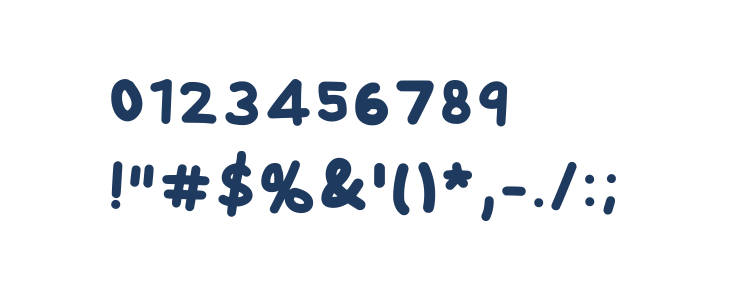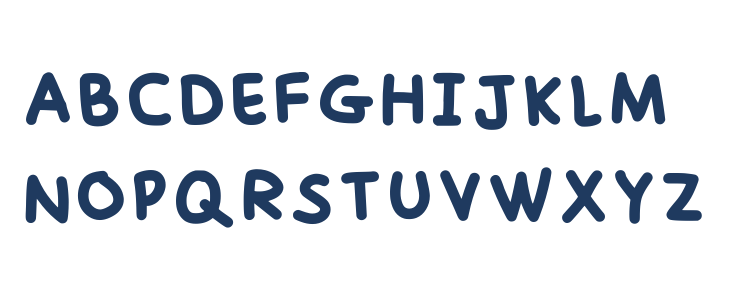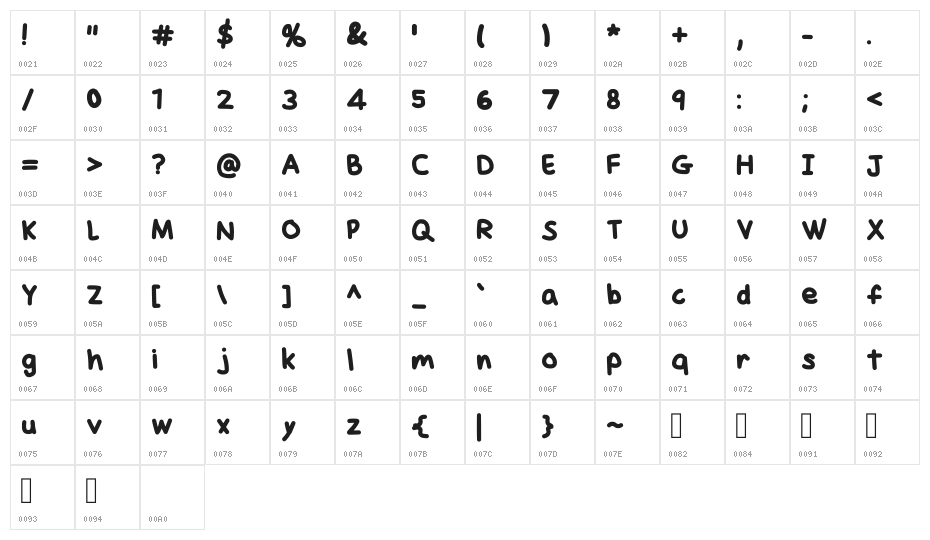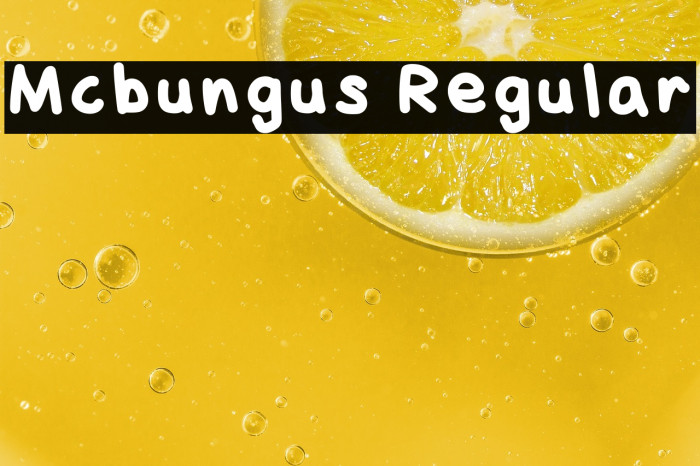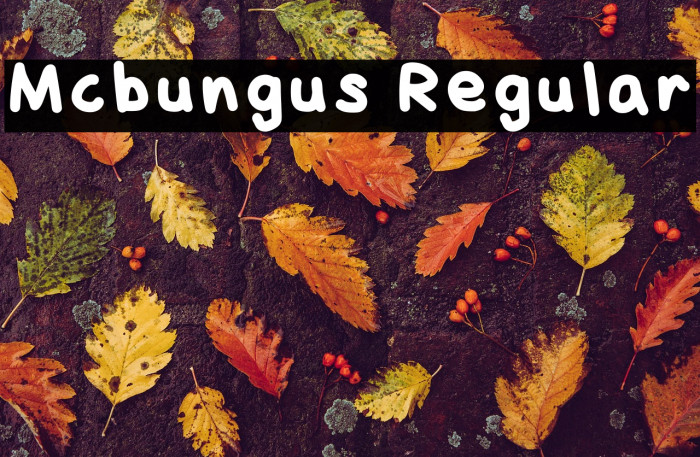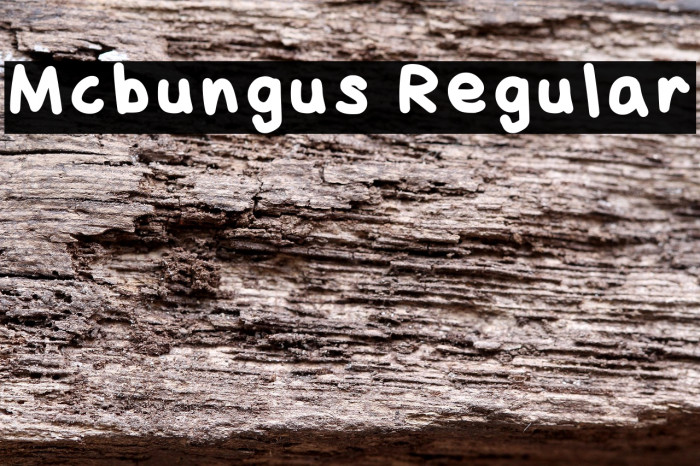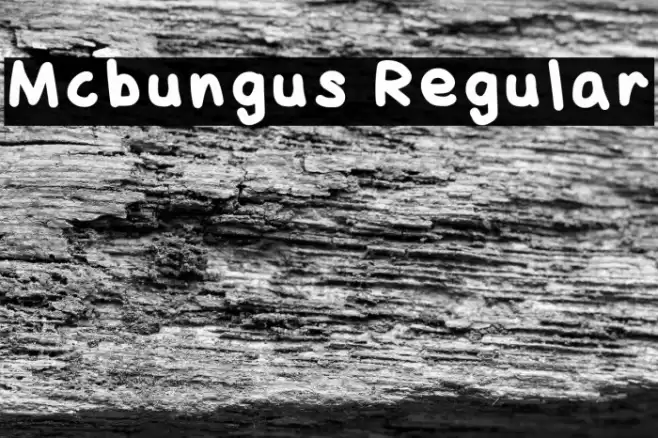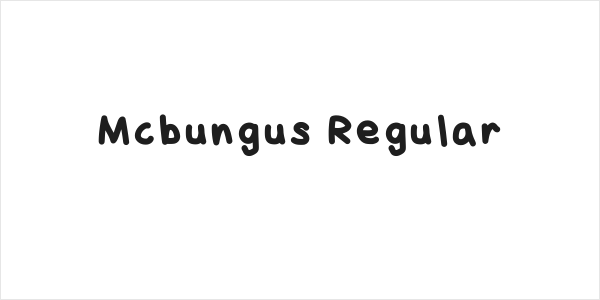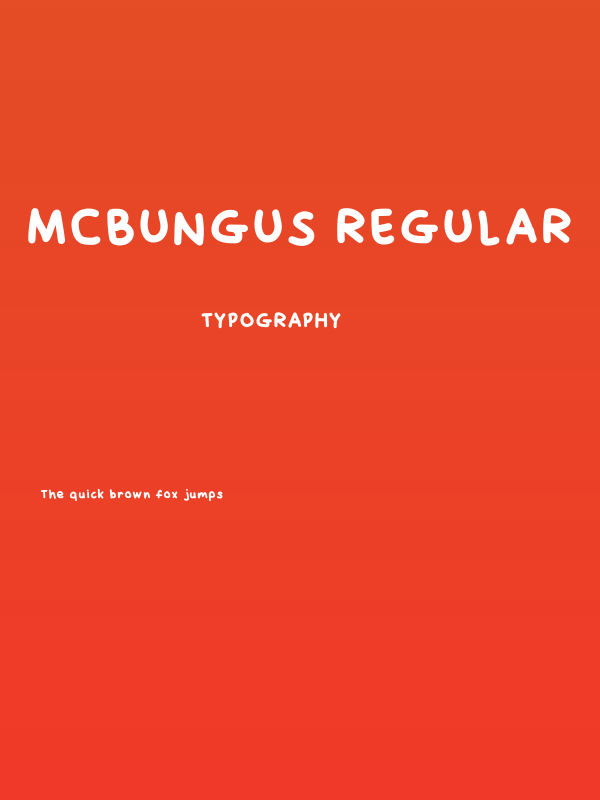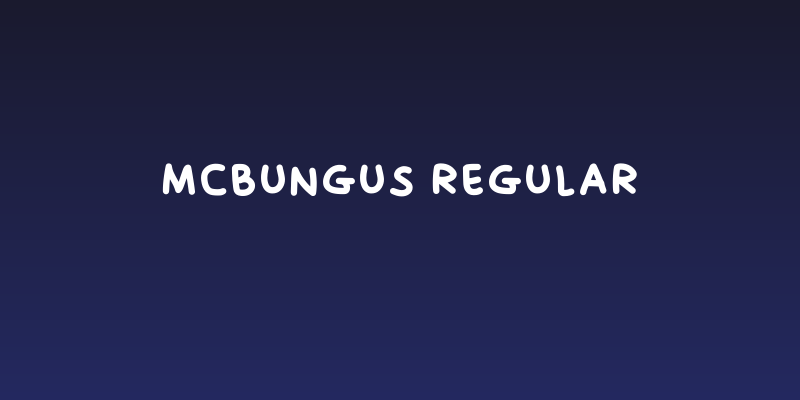
Mcbungus Regular Font
Mcbungus Regular Description
A playful, rounded, handwritten style font with a casual and friendly appearance.
| Overall Style | Casual, Playful, Friendly |
| Use Case | Headlines, Body text, Logos, Invitations |